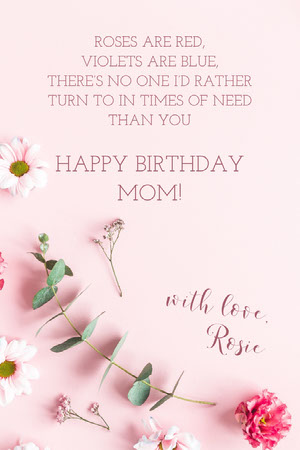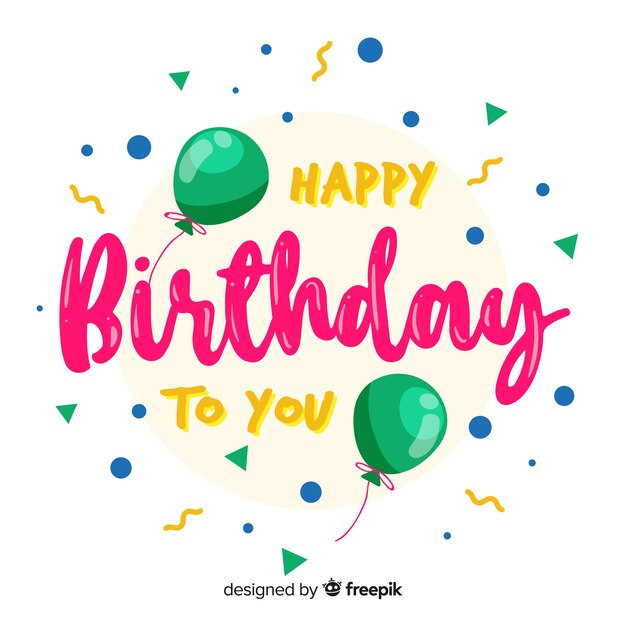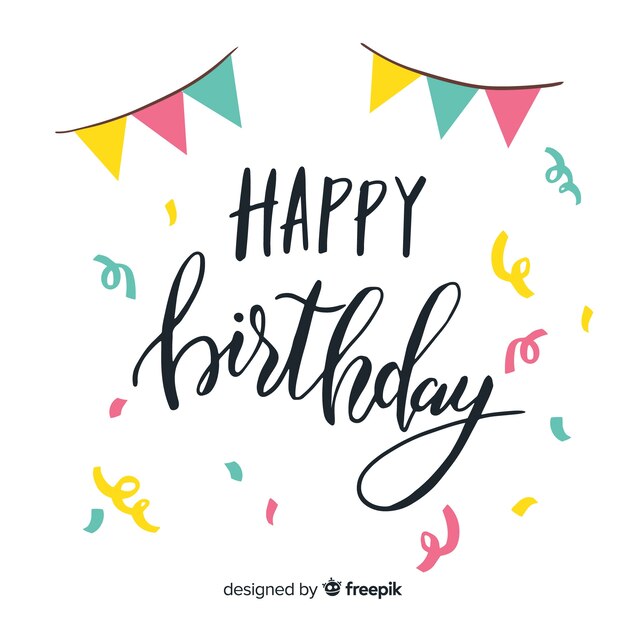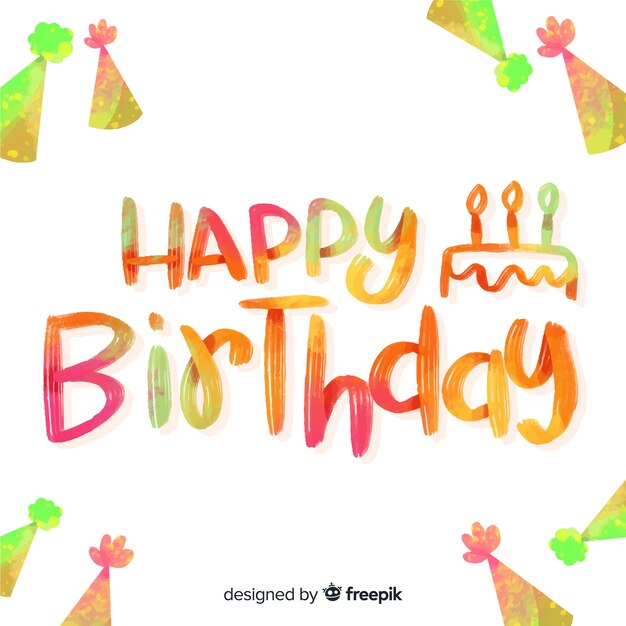
Happy Birthday Font Ideas
Happy birthday font ideas. The "Text Generator" section features simple tools that let you create graphics with fonts of different styles as well as various text effects;. Moon Honey A Thick Mono Line Hand Lettered Font Cricut Font Silhouette Font Kid Font Girl Font Boy Font Birthday Font Cricut. Happy Birthday Font Happy Birthday to you!.
Birthday Wish No 10 in English language I wish you a long and happy life on your happy birthday in English Roman font ma tapaiko janma dinma tapaiko lamo ra mangalmaya jiban ko kamana garchhu (It is used for the elder person). Oct 16, Explore Rosemary Rousselle's board "Happy Birthday Font" on See more ideas about happy birthday font, happy birthday, birthday cards. Best Happy Birthday Fonts InstaLove SVG Font is designed by Nicky Laatz This is a regular font loaded with alternates and ligatures My Lovely This typeface is one of the beautiful birthday fonts that are packed with swashes and end swashes This font Birthday Party Birthday Party.
Happy Birthday is a sweet and joyful handwritten font Casual and trendy, this font will brighten up each of your creative ideas Add it confidently and you won’t be disappointed. Sep 9, 18 Explore Catherine Phipson's board "birthday fonts" on See more ideas about lettering, birthday greetings, happy birthday cards. Short & Simple Happy Birthday Wishes Quotes Text In the times of digital world and hectic lifestyle, people are tied up in their busy schedules and don’t have time for anythingIn the 21 st century also don’t go through calls or personally meeting your friend or relative These are just possible through Short & Simple birthday Wishes that are sweet and simple.
25 Cool Happy Birthday Fonts Beloved Teacher This is a kind of creative font with a bit of whimsy without looking spastic It is really funny and Banoffee Font It’s a playful, somewhat kooky typeface that tries its best to look like real handwriting It uses Childish Reverie Font Childish. Sep , 16 Explore Dee Butler's board "Happy Birthday fonts" on See more ideas about happy birthday, happy birthday images. Happy Birthday is a fun and friendly handwritten font Get creative with its childlike playfulness, and use it to brighten up any kids and school project!.
Design ideas and inspiration Shop this gift guide Price ($) Any price Happy Birthday Embroidery Design in 2 Sizes Instant Download Digital Machine Embroidery Design "Ella" Ombre Gradient Filled Embroidery Font in 2 colors 5 sizes Uppercase, Lowcase letters, Numbers and Punctuation AL081. Some fonts look better on a large sign and some work better on a small sign Some fonts may look great digitally but not turn out as great when printed on a physical sign Picking the best font for your signage can be a bit complicated and overwhelming, so we compiled all of the info you need in this article Best fonts for signs. Birthday Script Font Birthday has 377 glyphs which includes standard and discretionary ligatures and alternates to make your words look beautifully elegant Birthday also works really well as a neat handwriting font for a more formal look to your designs and for larger amounts of text.
Your present is this collection of free birthday party fonts Great for making invitations for you or your loved ones, or print on your cricut and decorate a cake. 40 Happy Birthday Fonts You Can Download with a Click You may also like Birthday Boy Font Only a few details and a bit of padding are needed in the thickness of this font to make it nice and Twiddlestix is a whimsical display font designed with an emphasis on fun This irregular. Design your own Birthday Fun logo for free Login Pricing Fonts Logos Choose logo > Edit Text > Customize > Done!.
A happy birthday font can fall into any of these categories No matter what you choose, we are sure that the choice will be the right one for such a special occasion Happy birthday fonts to check out Birthday Script Font – Elegant Design. Jan 10, 18 Explore 宗虹 王's board "happy birthday font" on See more ideas about happy birthday, happy birthday font, happy birthday typography. The "Fonts Collection" section is the place where you can browse, filter, custom preview and.